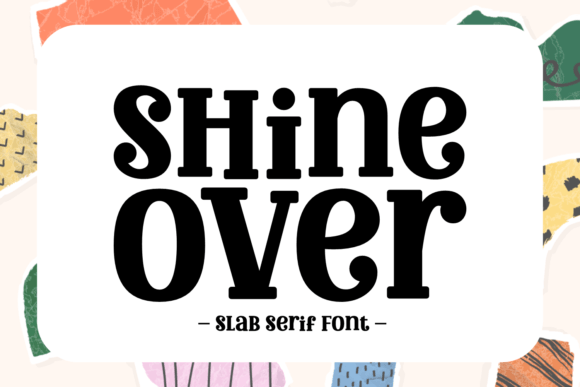
Introducing Shine Over Font, the ultimate choice for anyone seeking the best font for CD covers and more! Created by the talented Jasa from 7NTypes, this slab serif typeface exudes a captivating elegance that will instantly elevate your designs.
With its minimalist and clean design, Shine Over is perfectly suited for a wide range of applications. Whether you're designing labels for perfumes or cosmetics, creating stunning magazine covers, eye-catching posters, impactful manifests, attention-grabbing flyers, engaging social media posts, or even fashion-related projects, Shine Over is the perfect companion.
Embrace the power of Shine Over and witness how it breathes life into your creations. Its versatility and adaptability ensure that your designs will stand out from the crowd, leaving a lasting impression on anyone who lays eyes on them.
The sleek and sophisticated look of Shine Over will captivate your audience, drawing them in with its timeless charm. Its meticulously crafted letters exude confidence and professionalism, making it the ideal choice for those who strive for perfection in their designs.
With its rich collection of ligatures and alternates, Shine Over offers endless possibilities for customization. Tailor the font to suit your unique style and vision, allowing your creativity to run wild and create designs that truly represent your brand.
But Shine Over is more than just a font – it's an experience. It evokes emotions and tells a story, leaving a lasting impact on your audience. Whether you're aiming for a bold and powerful statement or a subtle and elegant touch, Shine Over will help you achieve your desired effect effortlessly.